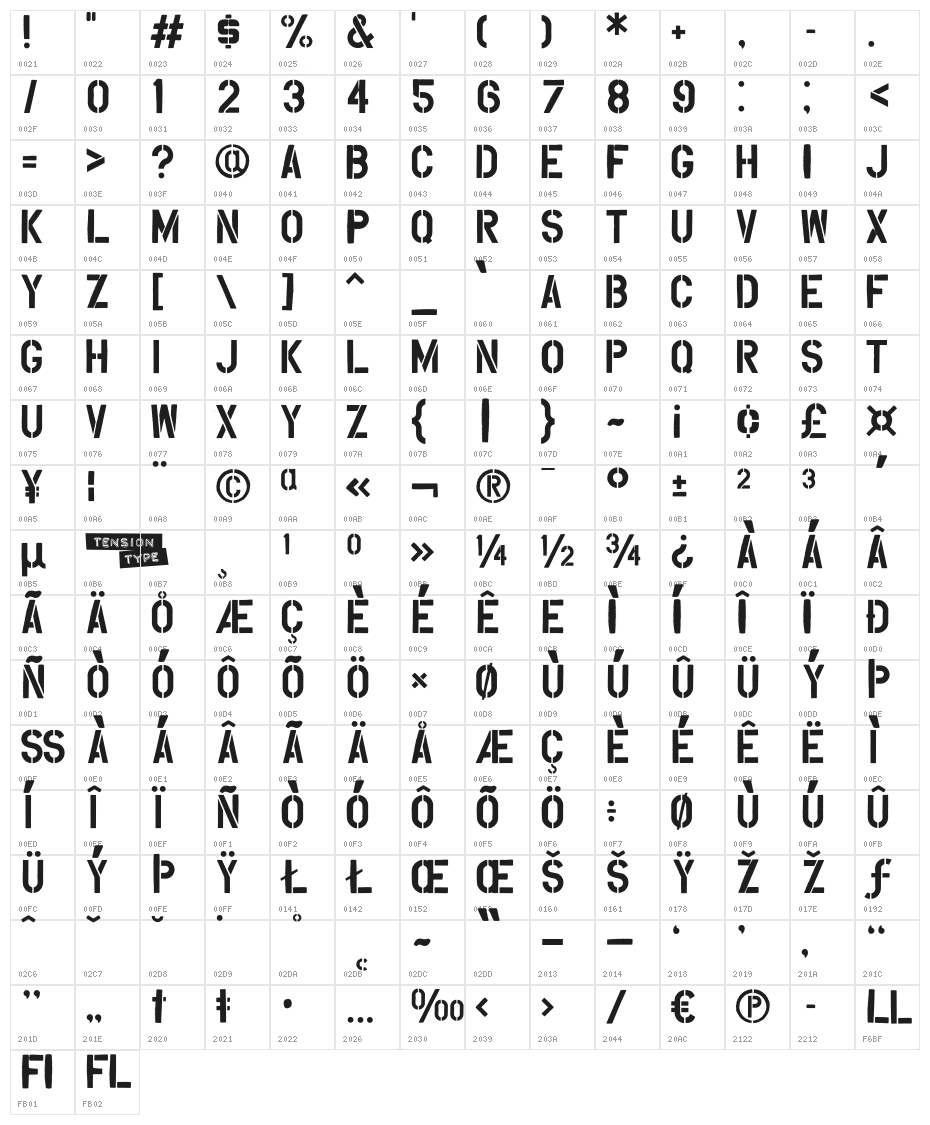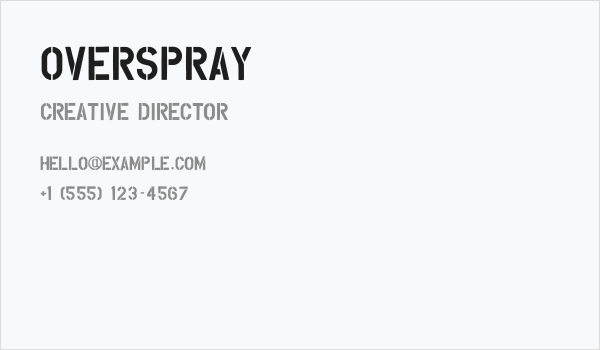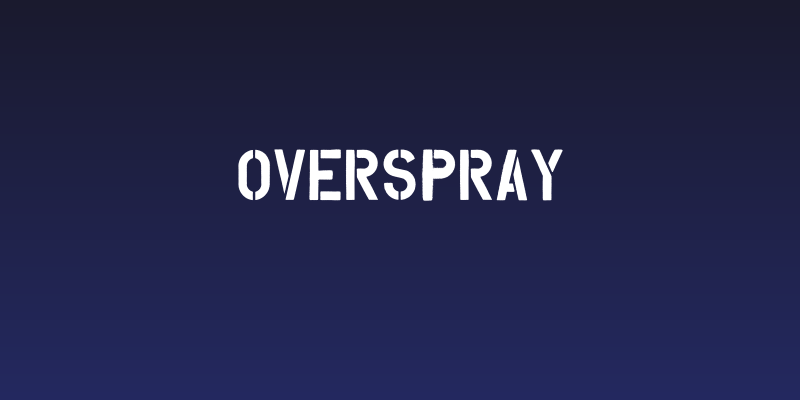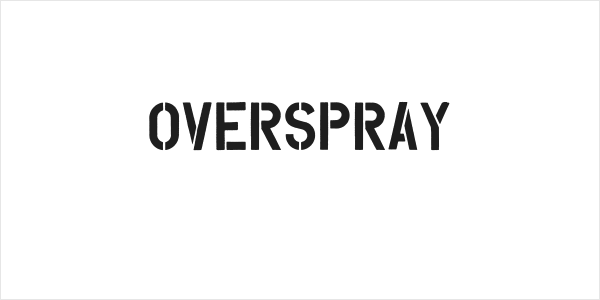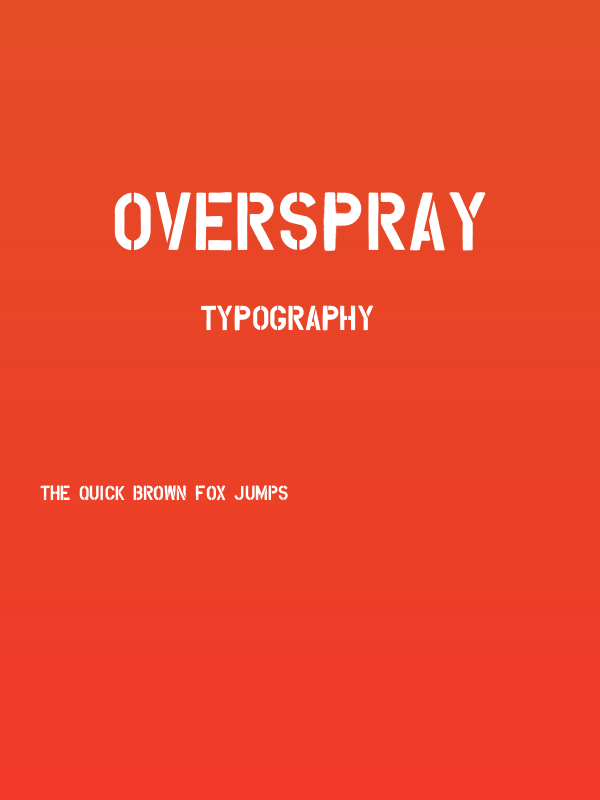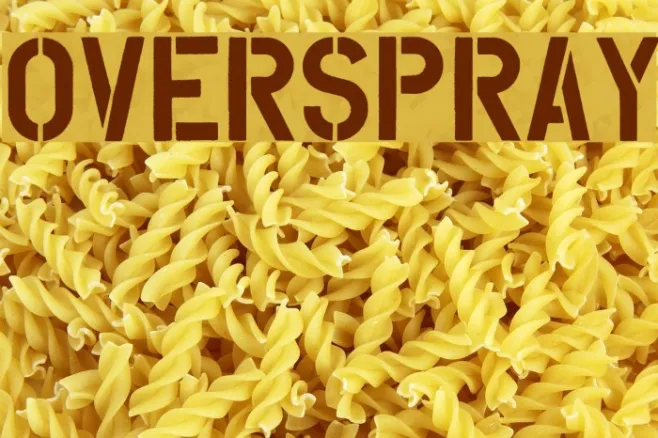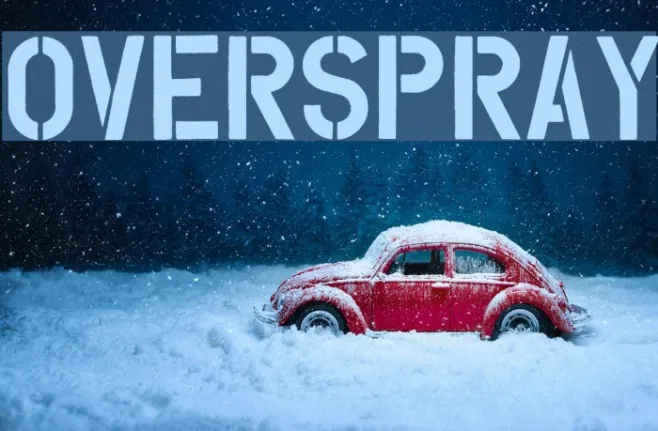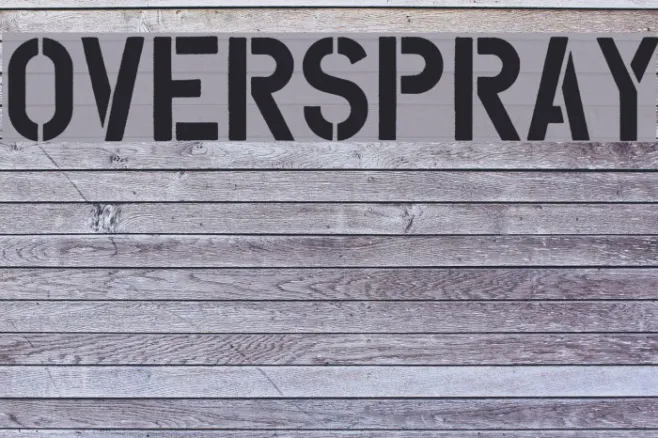
Overspray Font
Overspray Description
This font features a bold, stencil-like design with a rugged, industrial feel. Each character is distinctly separated by breaks, mimicking the appearance of spray-painted stencils. The uppercase letters are strong and assertive, while the numbers and special characters maintain the same bold aesthetic. The font's design is reminiscent of military or street art, offering a gritty and urban vibe. Its high contrast and thick strokes make it highly legible and impactful, suitable for attention-grabbing displays.
| Overall Style | Industrial, Urban |
| Proposed Projects | Ideal for use in posters, street art designs, military-themed projects, and branding that requires a strong, bold statement. |